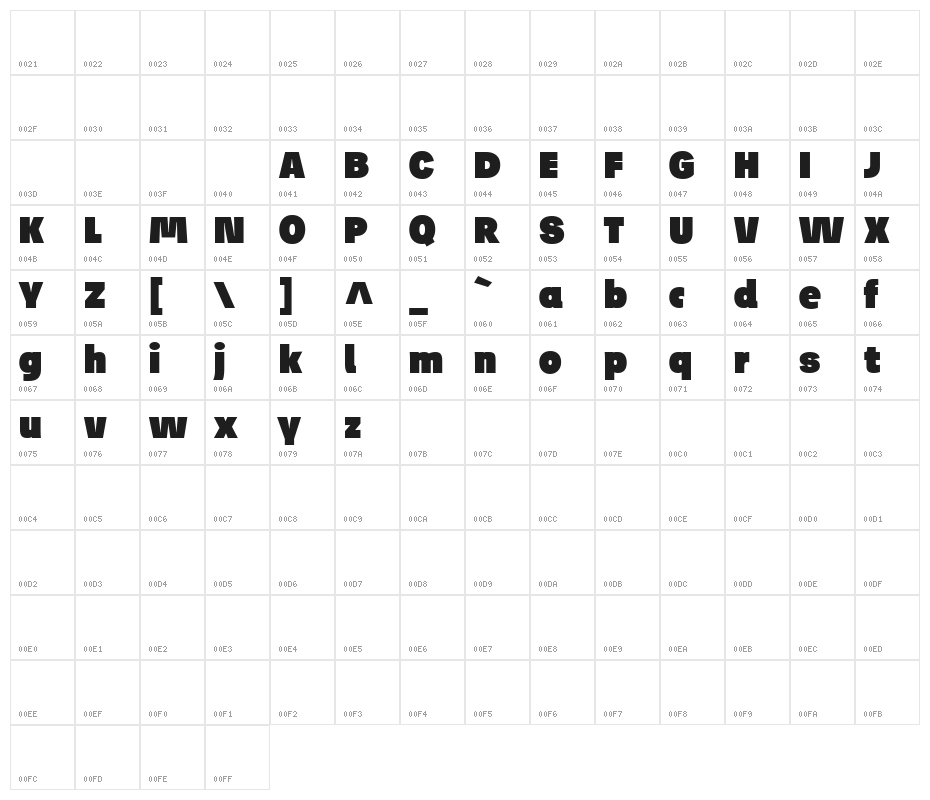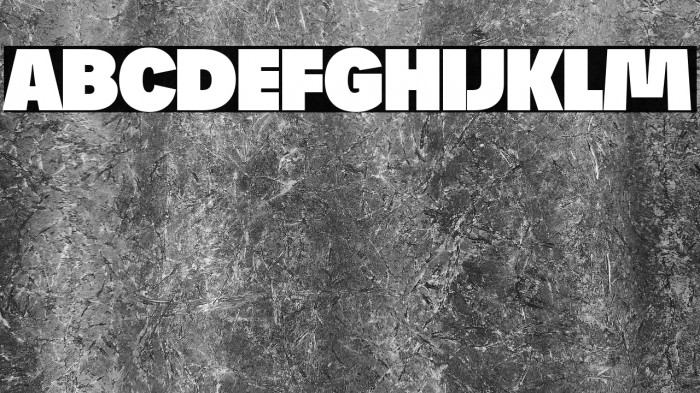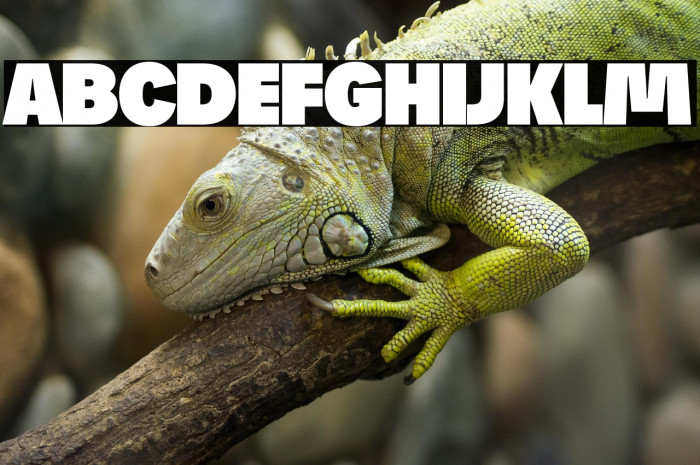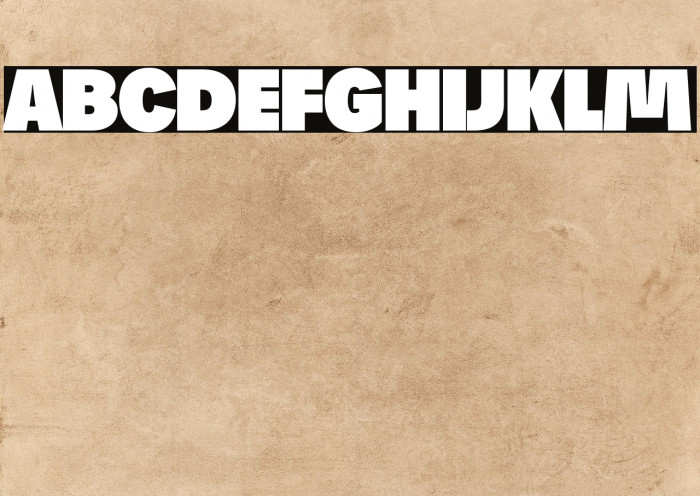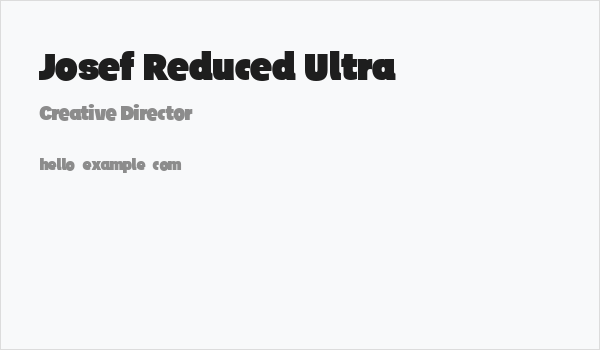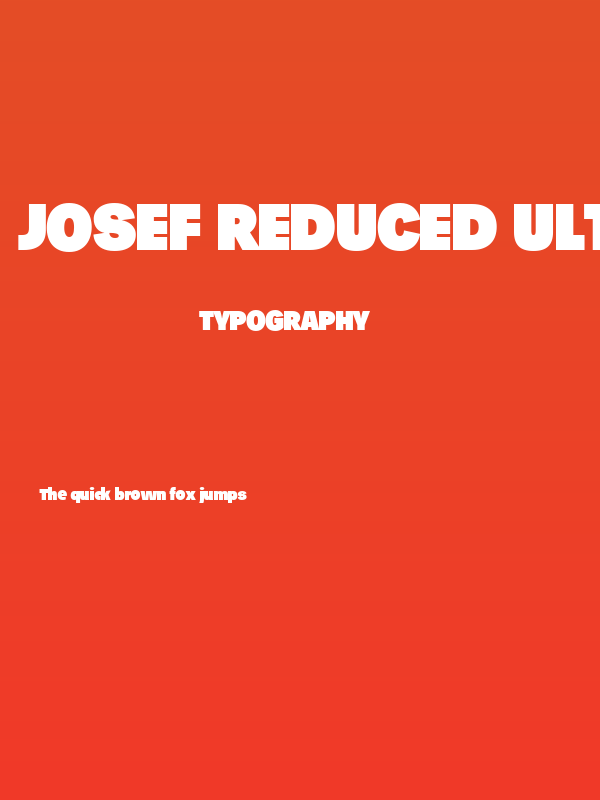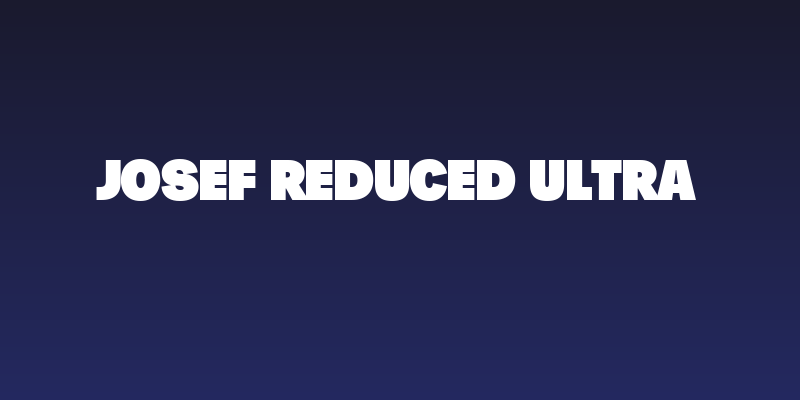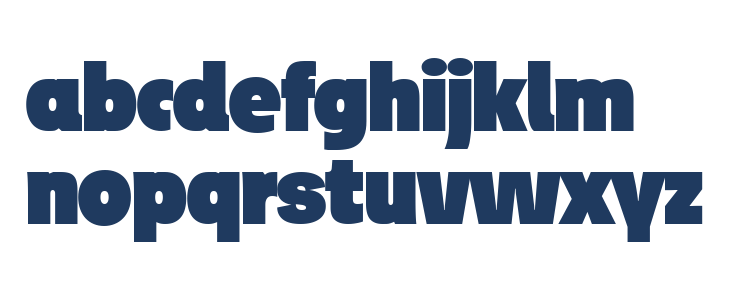
Josef Reduced Ultra Font
Josef Reduced Ultra Description
This font features bold, heavy strokes with a strong presence, making it ideal for impactful headlines and attention-grabbing designs. The characters are uniformly wide, with a consistent thickness that gives a sense of stability and strength. The uppercase and lowercase letters maintain a cohesive style, with rounded edges that soften the overall boldness. The font's design is straightforward, with minimal decorative elements, focusing on clarity and readability. Its robust appearance makes it suitable for modern and dynamic projects where a commanding visual is required.
| Proposed Projects | Ideal for headlines, posters, branding materials, and any design requiring a strong visual impact. |